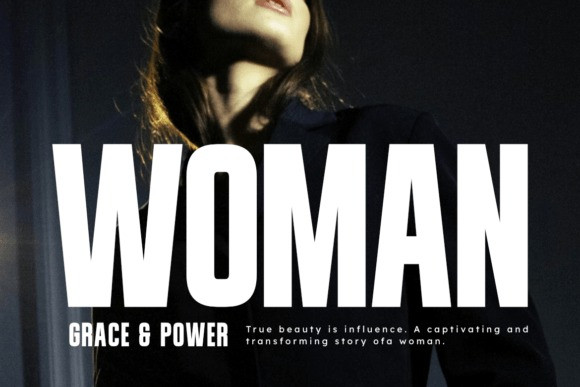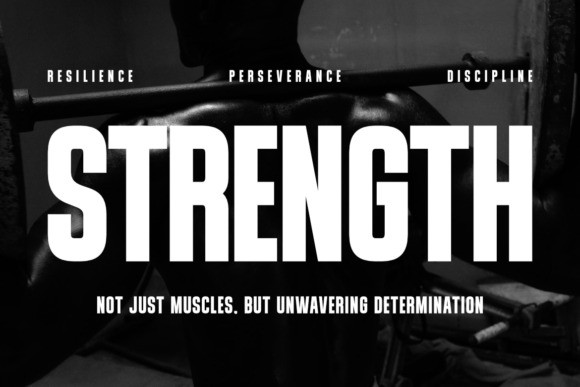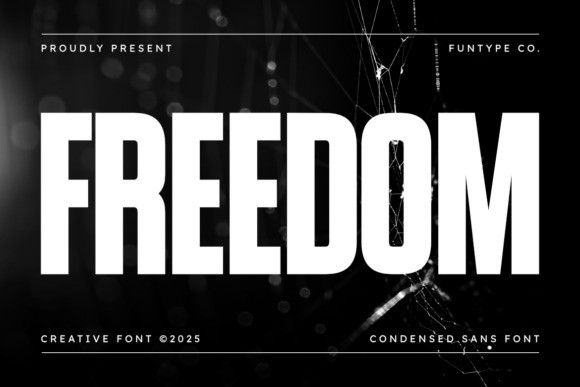
Freedom Font
Freedom Font is a bold, creative condensed sans font designed to capture a sense of unrestricted energy and powerful statement. Its solid, thick construction and slightly aggressive stance make it highly effective for impactful headlines, music and urban culture branding, sports design, and large format posters. Freedom is a contemporary and versatile display typeface that delivers maximum visual punch, perfect for designers looking for a strong, clean, and memorable font that embodies confidence and dynamism.